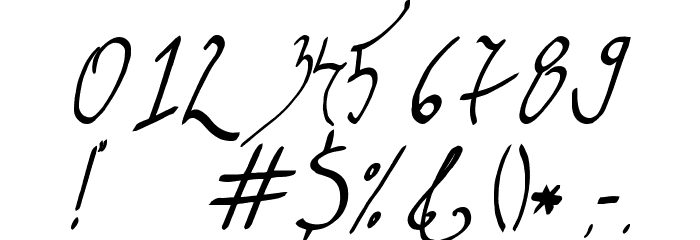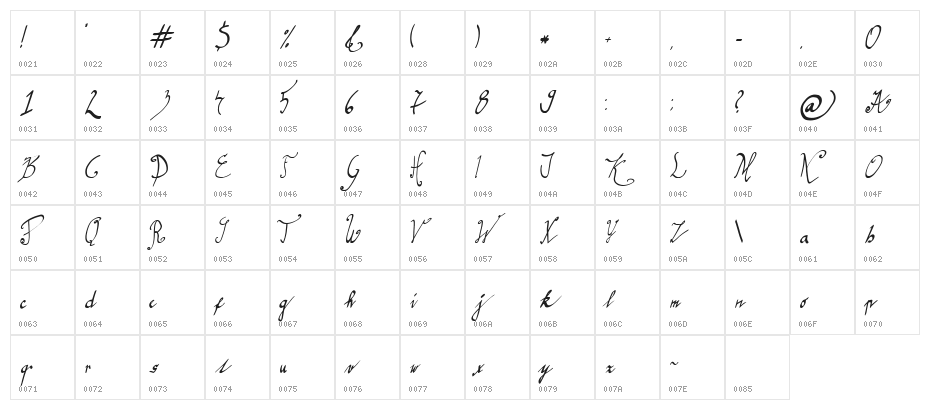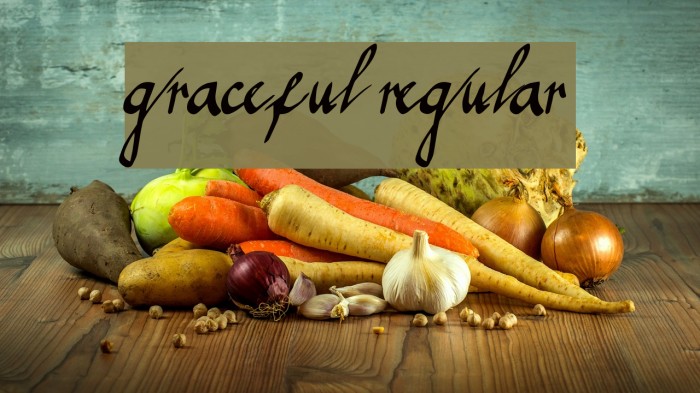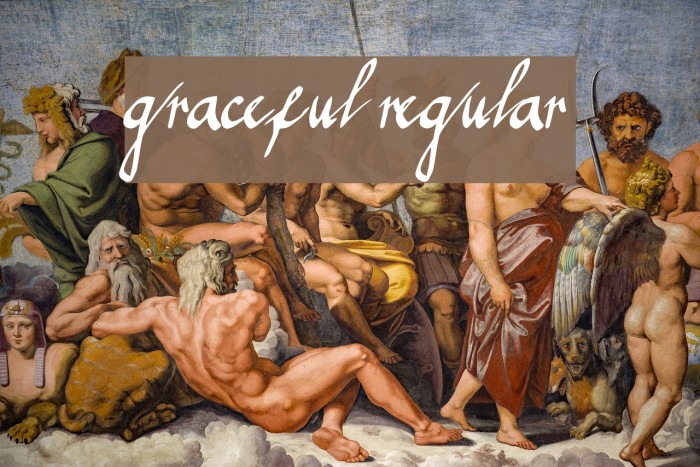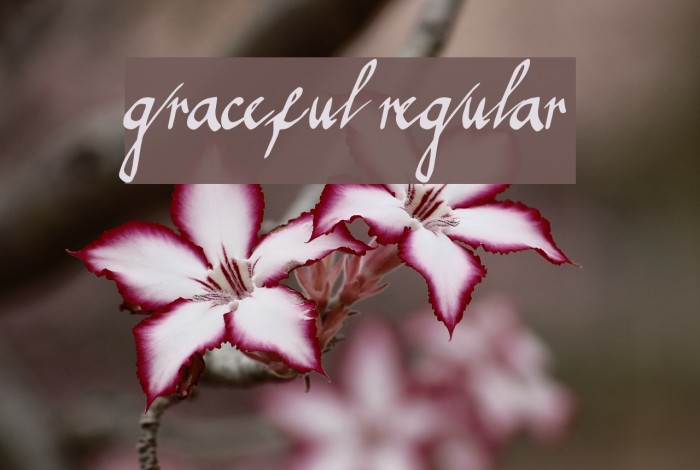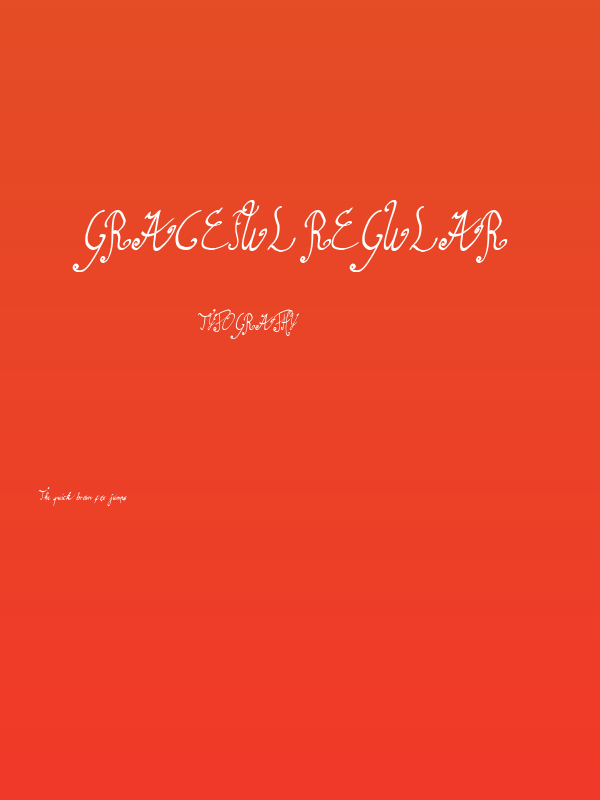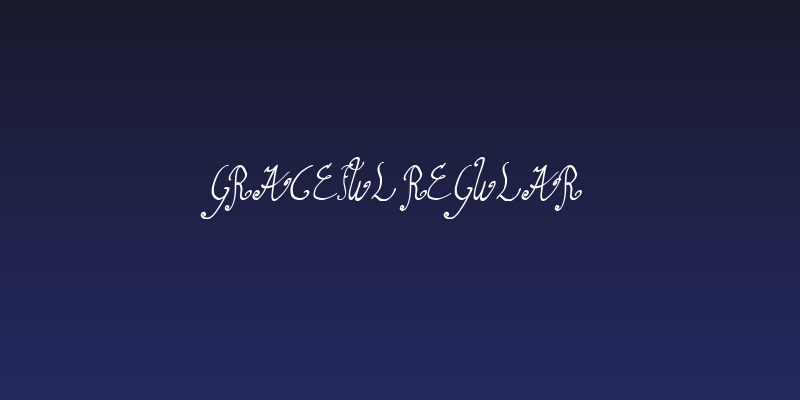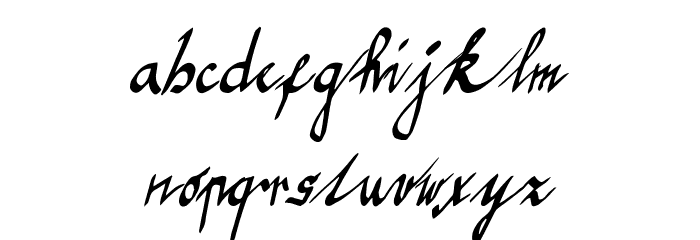
graceful regular Font
graceful regular Description
This font exudes elegance and sophistication with its flowing, cursive style. The characters are intricately designed, featuring delicate swirls and loops that give it a graceful appearance. The uppercase letters are particularly ornate, with exaggerated flourishes that add a touch of drama. The lowercase letters maintain the same fluidity, ensuring a cohesive look throughout. Numbers and special characters are equally stylized, making this font suitable for decorative purposes. The overall design is reminiscent of classic calligraphy, yet it maintains a modern twist that makes it versatile for various applications.